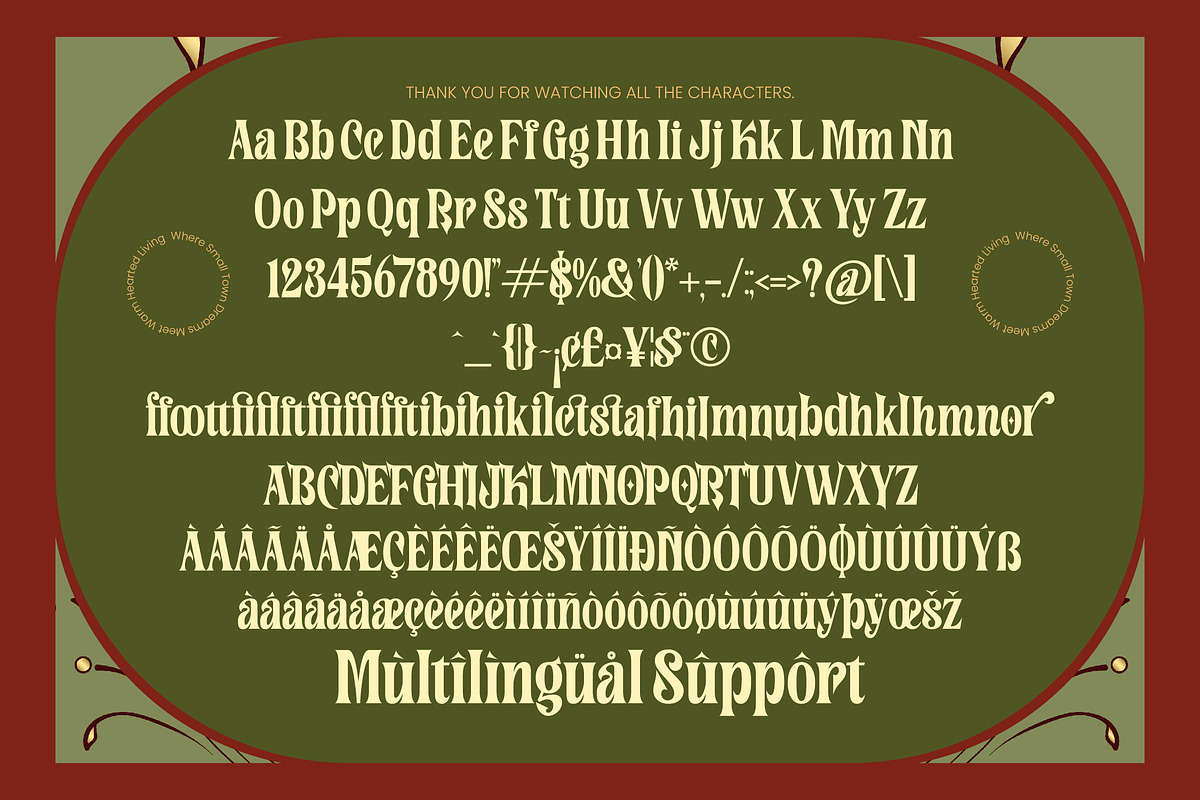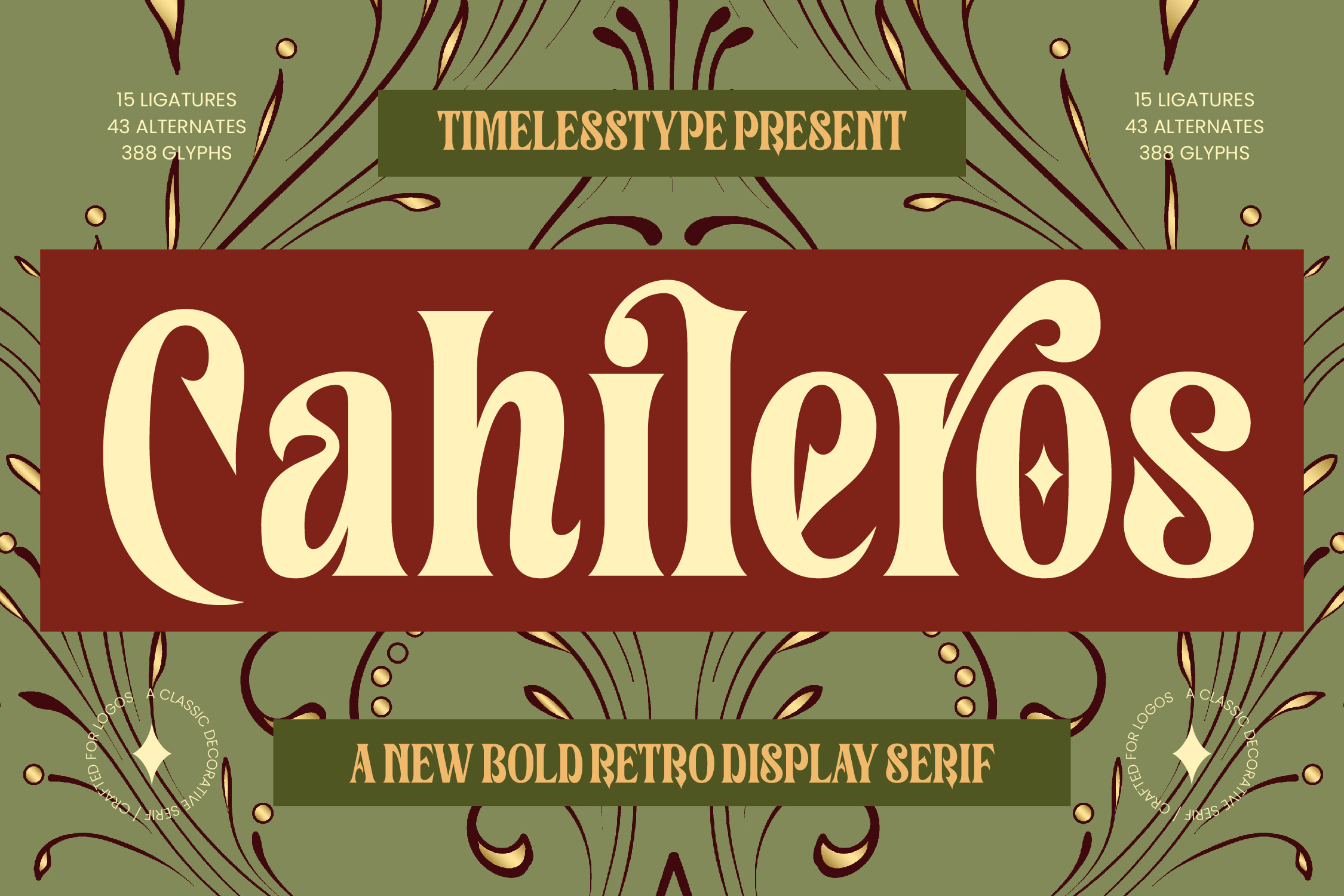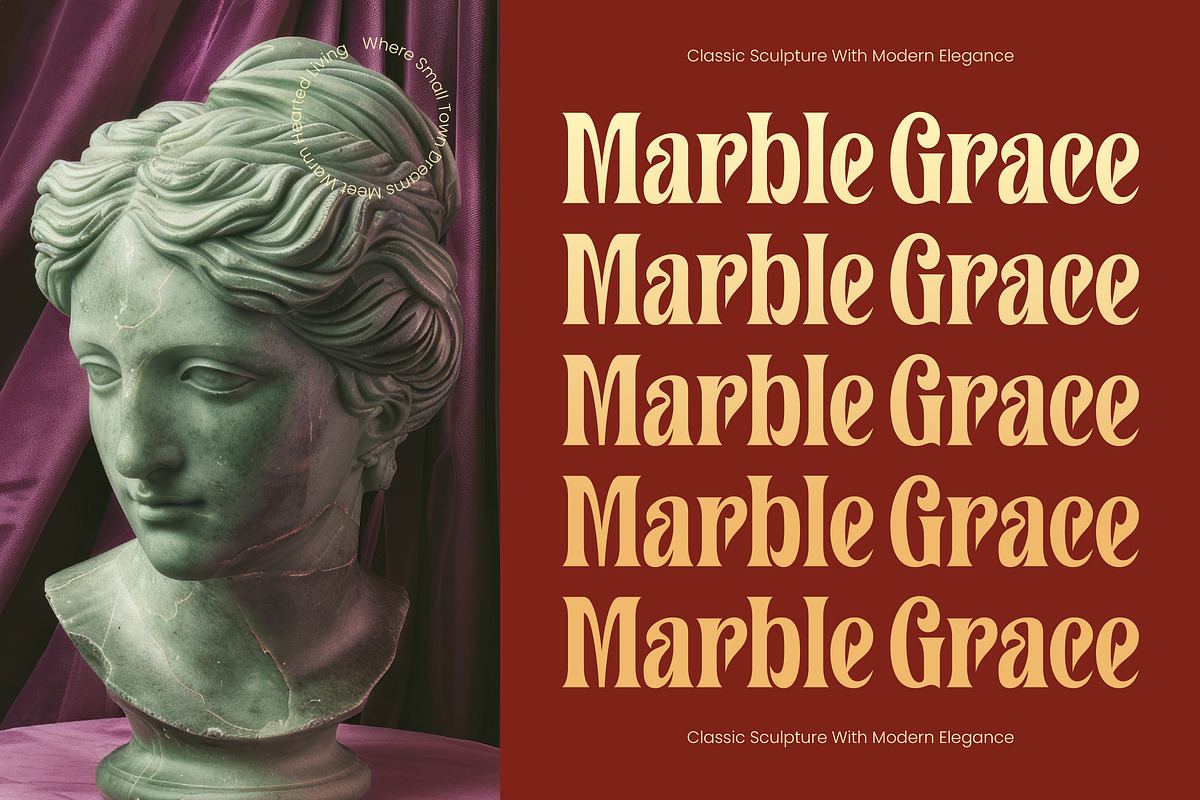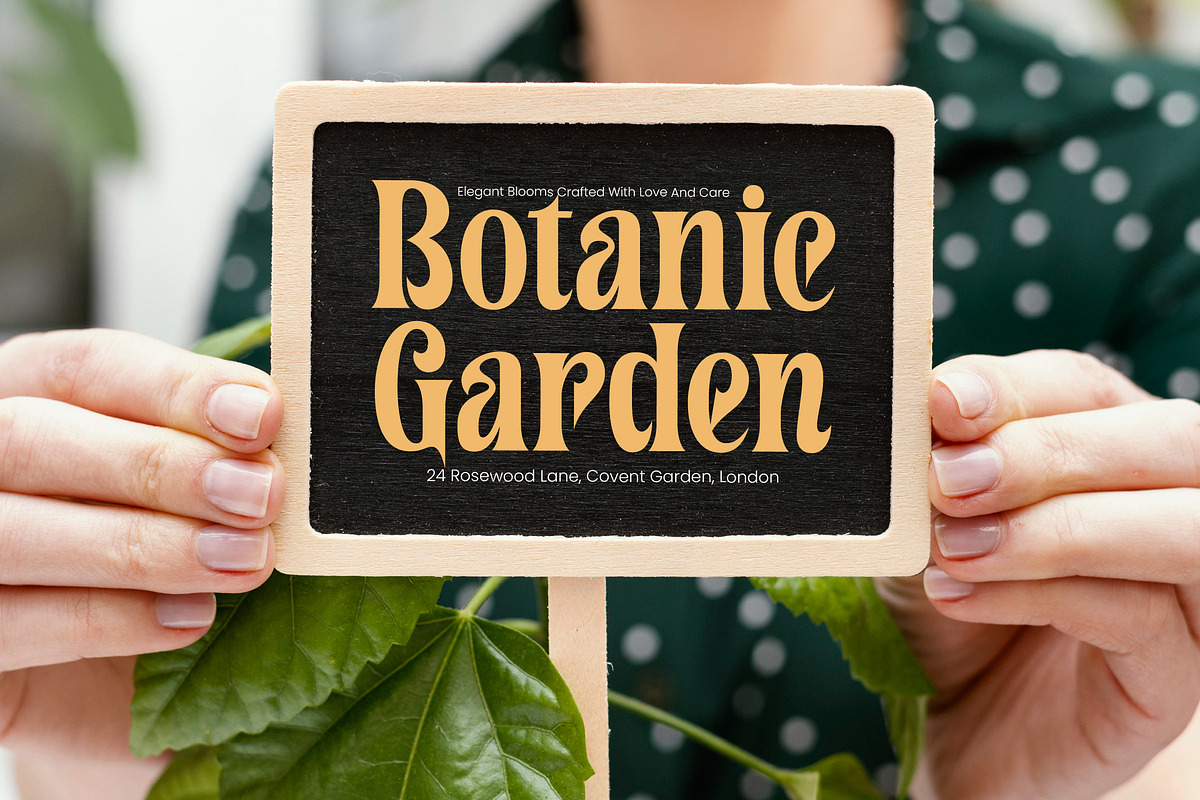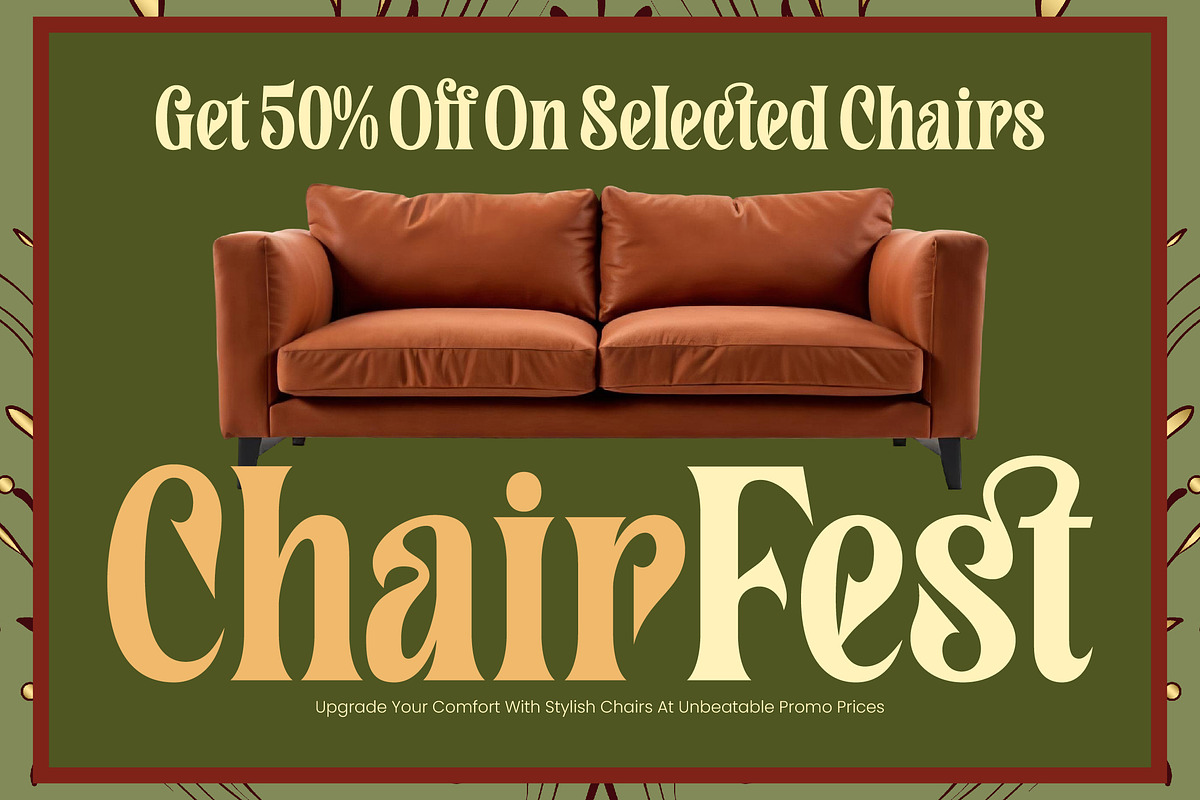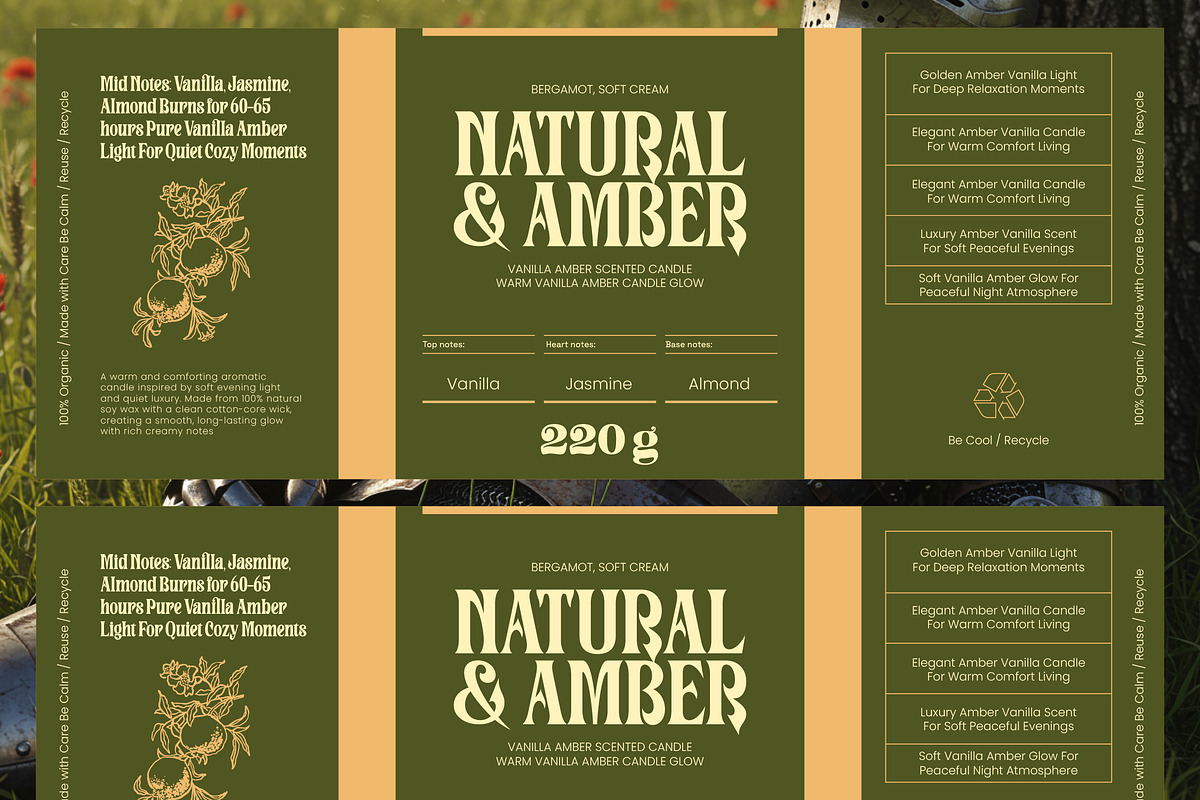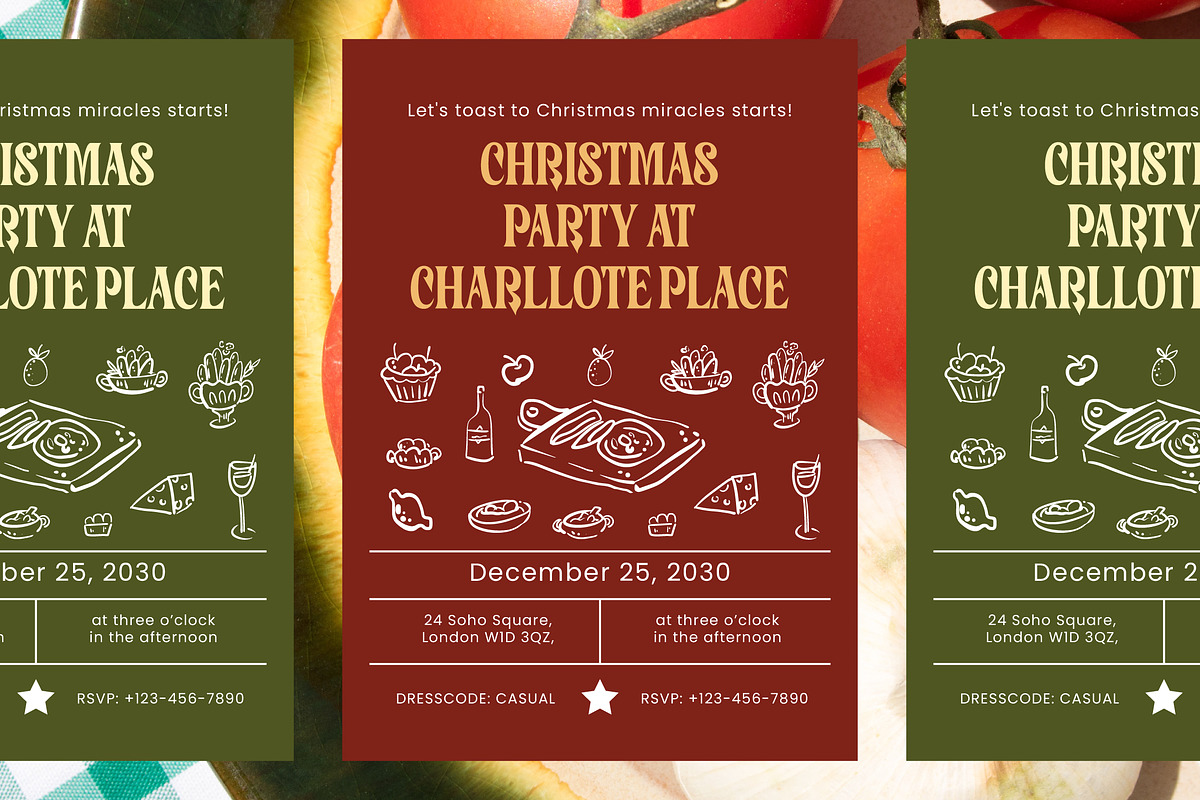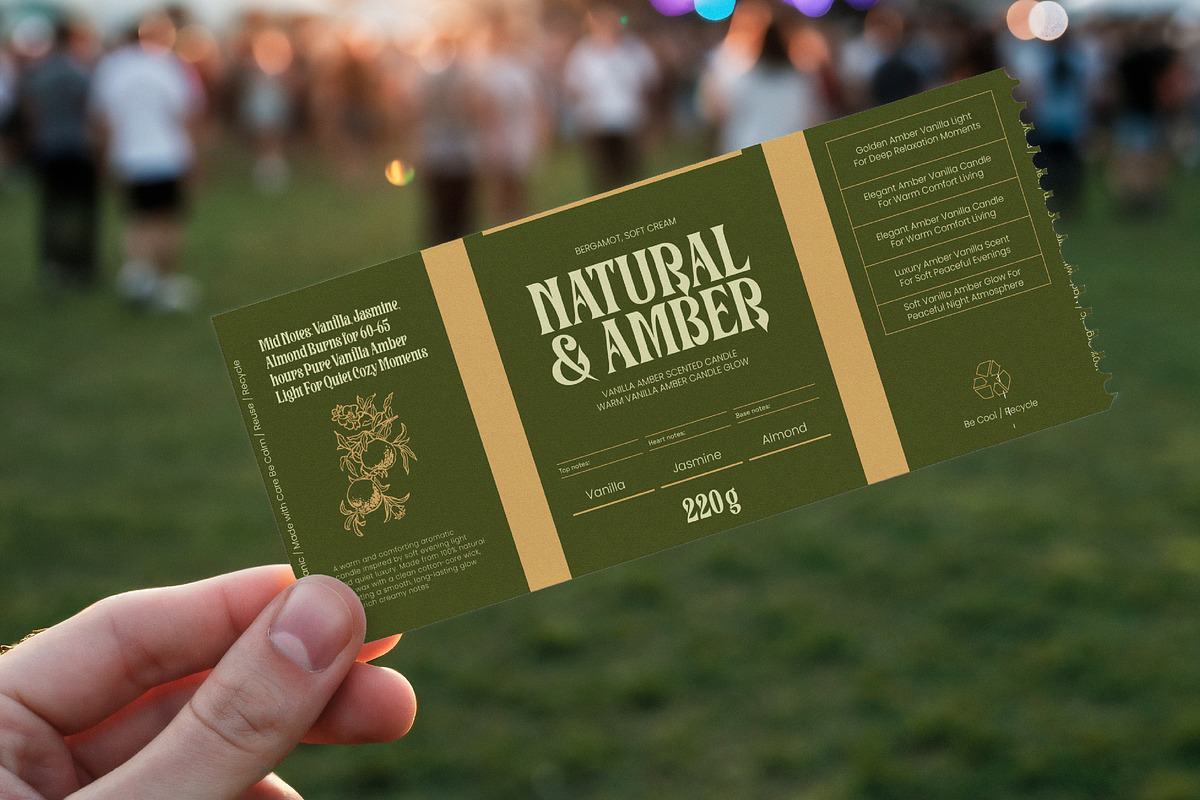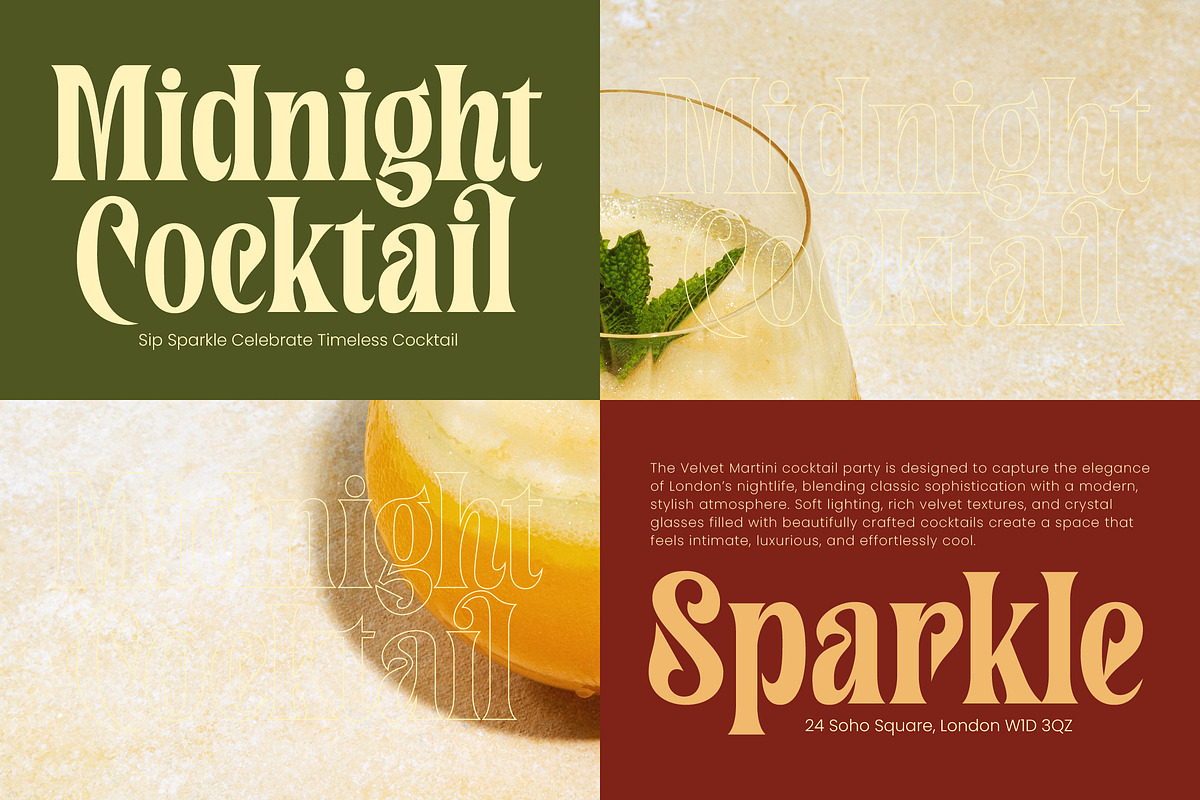
Cahileros Retro Bold Serif Font
Experience the soulful elegance of Cahileros, a typeface designed to turn every word into a work of art. This masterfully crafted display serif brings a unique blend of heritage and contemporary flair to your creative toolkit.
Inspired by the ornate beauty of vintage signage and the flowing lines of classical decorative arts, this font captures a timeless aesthetic. It evokes the atmosphere of a boutique Parisian atelier where every detail is meticulously curated for maximum visual impact.
This modern serif display demands attention with its striking balance of thick and thin strokes, making it an ideal choice for luxury typography. Its high-contrast serif design ensures a powerful branding impact, while maintaining the grace of a high-end editorial font.
Staying ahead of the modern serif trend, this typeface perfectly aligns with the current demand for character-driven typography. Designers seeking editorial display fonts will find its unique curves and sharp serifs essential for creating stand-out visual identities in a crowded market.
From sophisticated logo design and high-concept branding to sleek editorial layouts, this font excels across diverse media. It is equally at home in luxury packaging, romantic wedding stationery, or bold fashion lookbooks, providing a versatile foundation for any premium project.
Enhance your designs with a rich set of ligatures and alternates that allow for deep customization and unique character pairings. Complete with comprehensive multilingual support and a vast array of international characters, this font ensures your message resonates globally with professional swashes and unique glyphs.
Ligature 15 Alternate 43
Numerals
Punctuations (OpenType Standard)
Accents (Multilingual Characters)
Ligatures and Alternative Style Stylistic Set